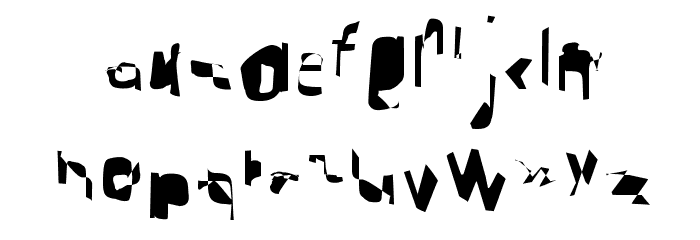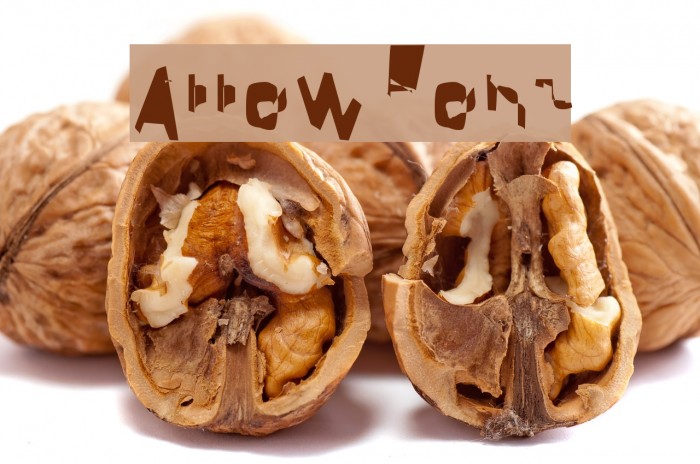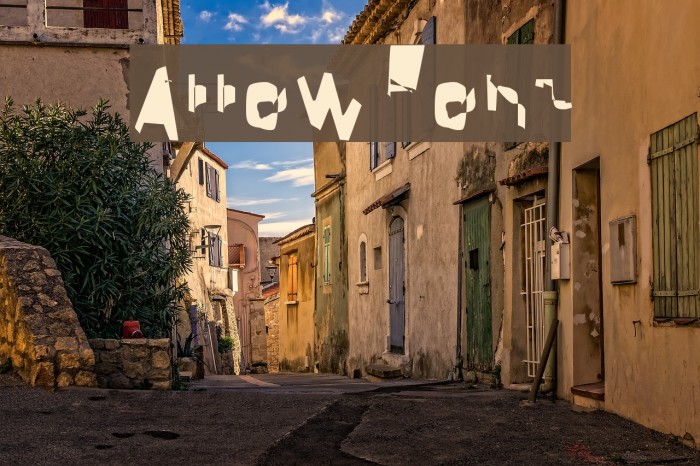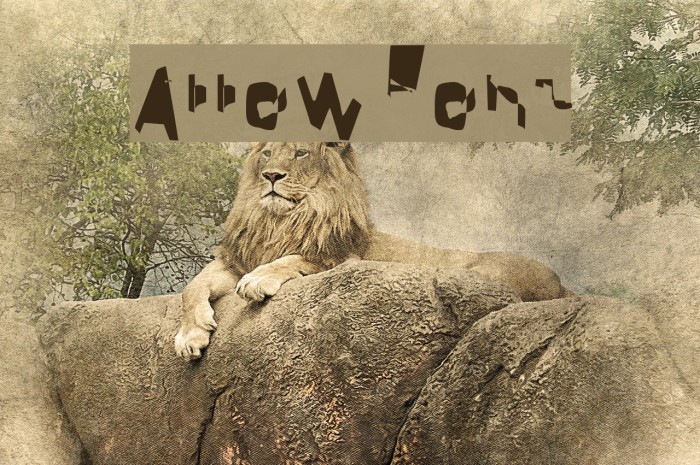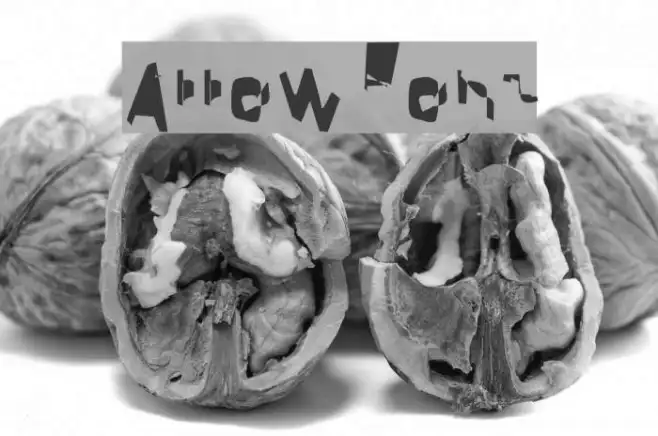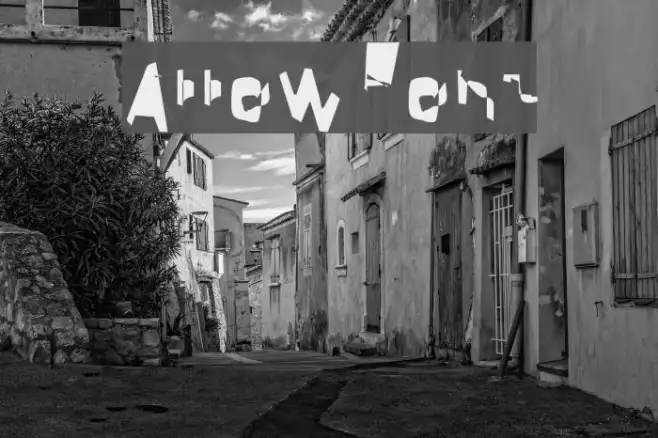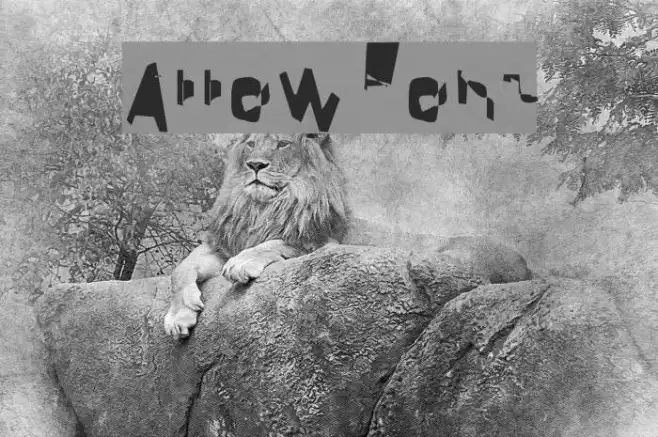
Arrow Font
This font features a highly abstract and fragmented design, with each character appearing as if it has been shattered or sliced. The letters are composed of bold, angular shapes that give a sense of movement and dynamism. Despite the chaotic appearance, each character remains distinguishable, making it a unique choice for artistic and avant-garde projects. The font's unconventional style challenges traditional readability, making it more suitable for creative and experimental uses rather than standard text applications.
A fragmented, abstract font with bold, angular shapes.
- Proposed Projects: Ideal for album covers, modern art posters, experimental branding, and edgy graphic design projects.
- Overall Style: Modern, Avant-garde
- Use Case: Logos, Headlines, Artistic projects